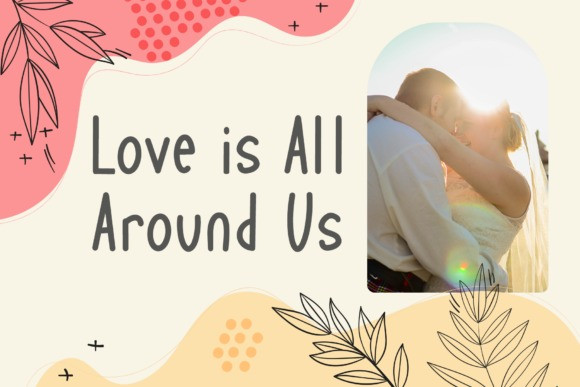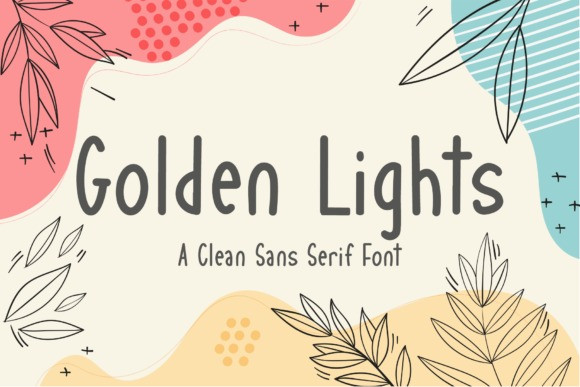
Golden Lights Font
Golden Lights Fun Font is a cute and simple lettered handwritten font that can be used for all chalkboard quotes or teaching material! Its authentic look will add a personal and realistic feel to your designs.